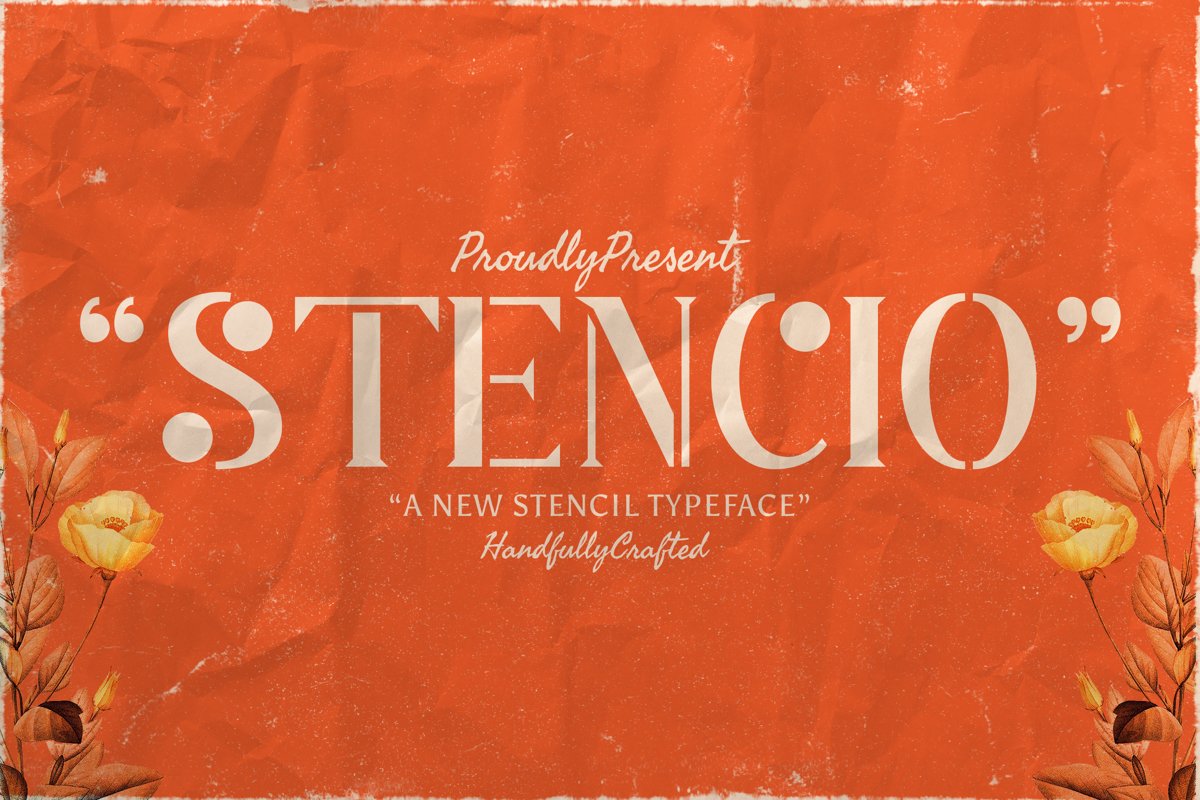
Stencio is a stencil typeface - display font. Perfect for display, mockup, quotes, posters, logo, logotype, branding, business card, crafting needs, print, t-shirt, mug, merchandise, packaging and other design what you want.